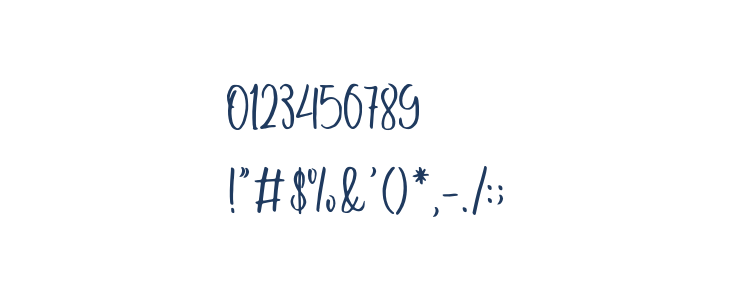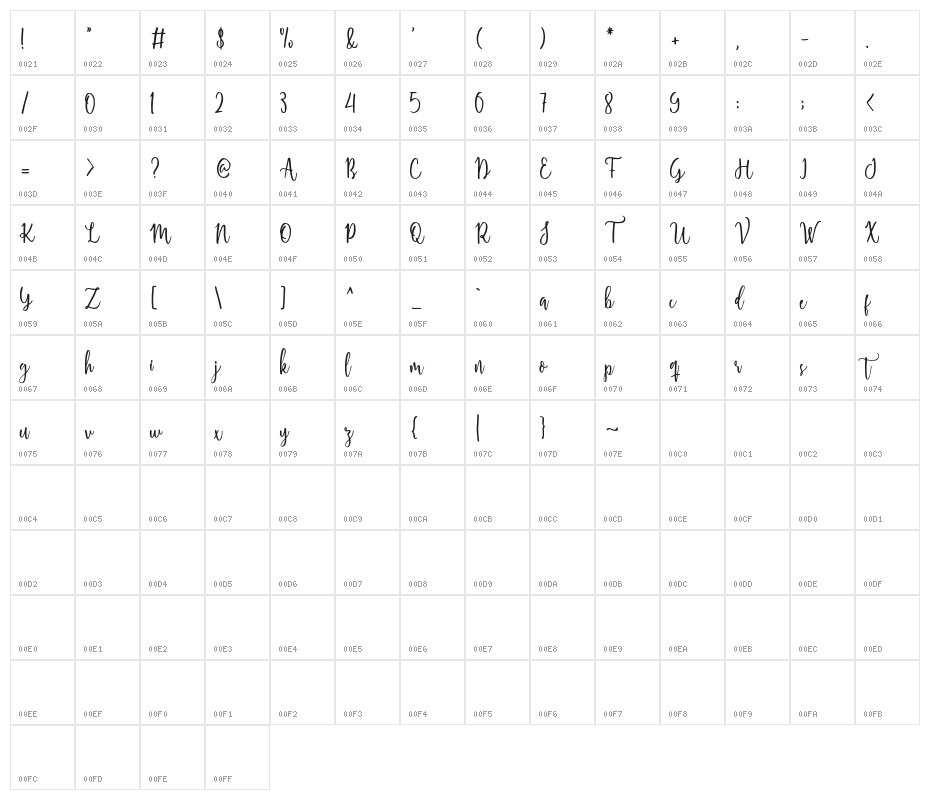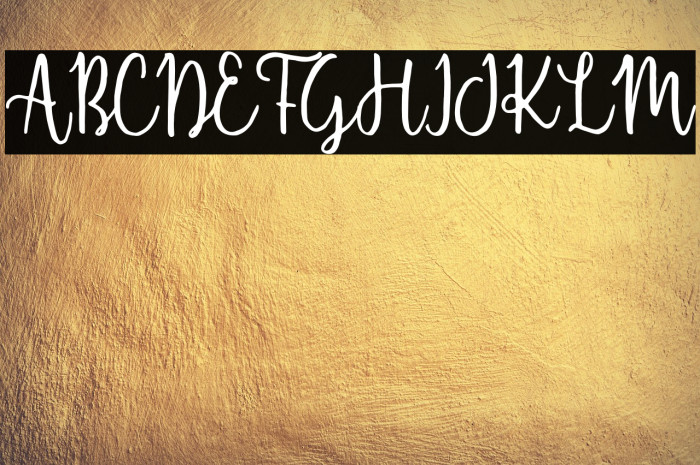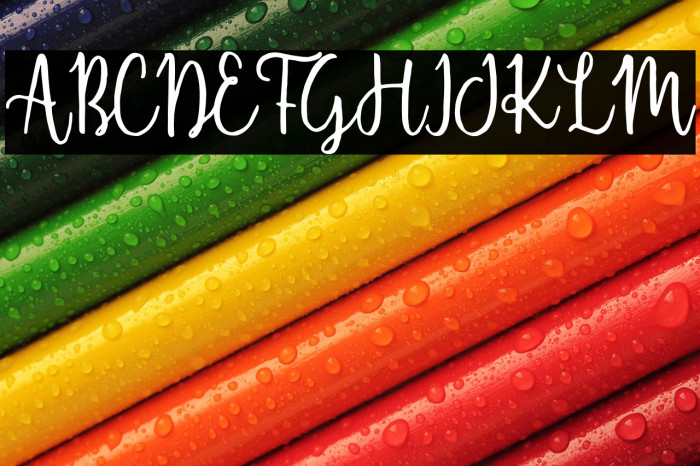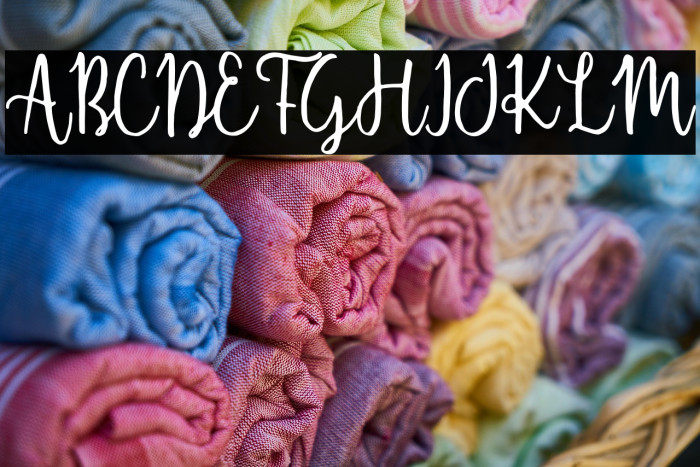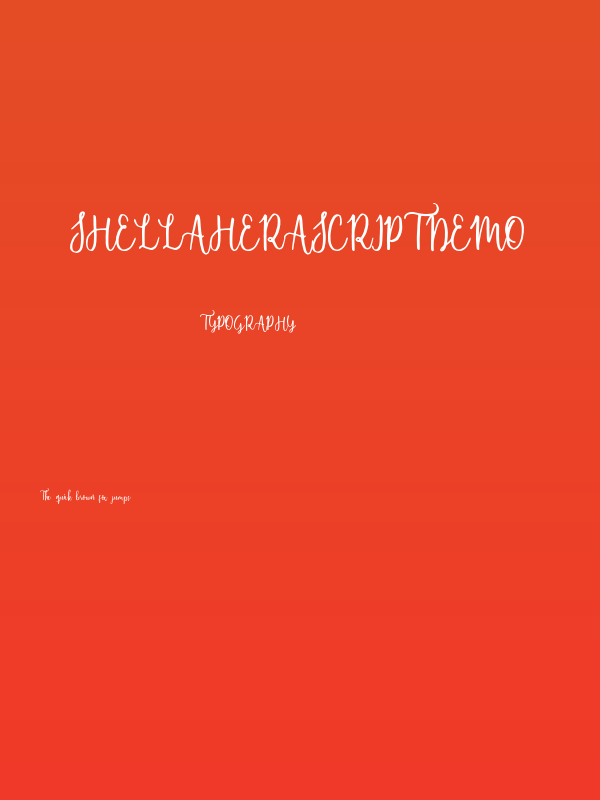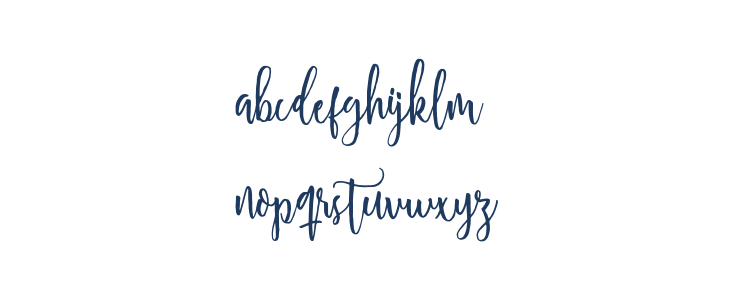
This elegant script font features a flowing, handwritten style with a playful yet sophisticated appearance. The uppercase letters are bold and slightly elongated, giving them a distinct presence, while the lowercase letters are more delicate with graceful loops and curves. The numbers maintain a consistent style with the letters, ensuring a cohesive look. Special characters are designed with the same attention to detail, making them blend seamlessly with the rest of the font. The overall design is both artistic and readable, making it suitable for a variety of creative projects.
| Use Case | Logos, Invitations, Greeting Cards |
| Proposed Projects | Ideal for wedding invitations, greeting cards, branding, and logo design, where a touch of elegance and personal flair is desired. |